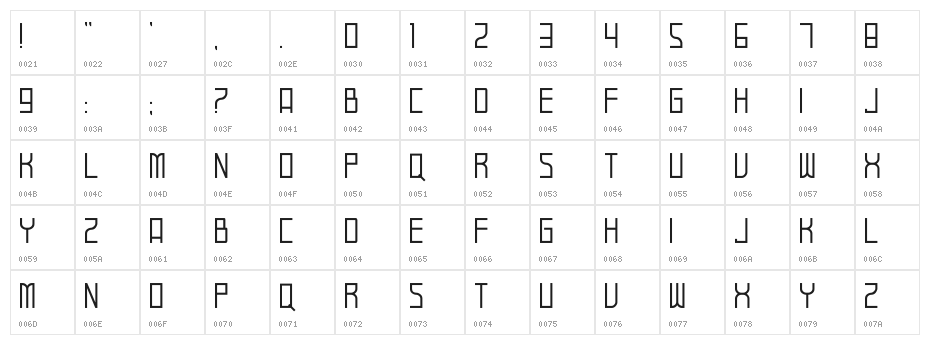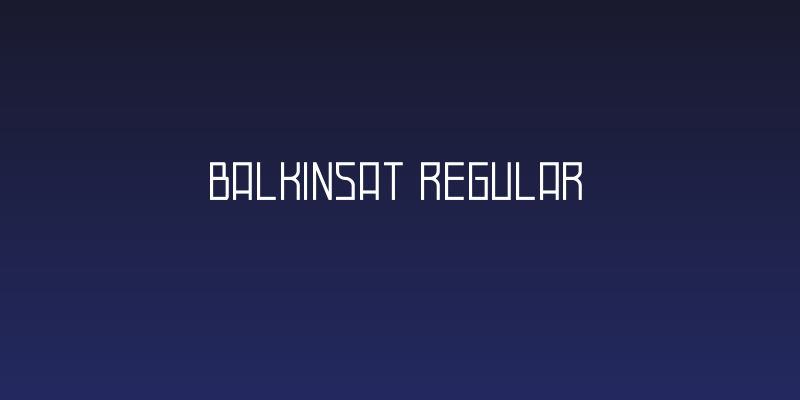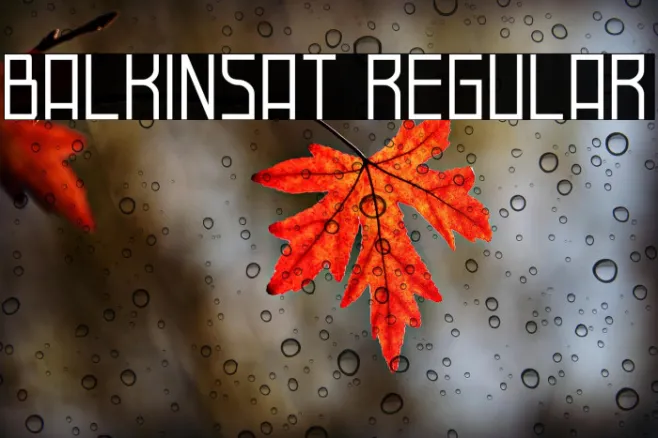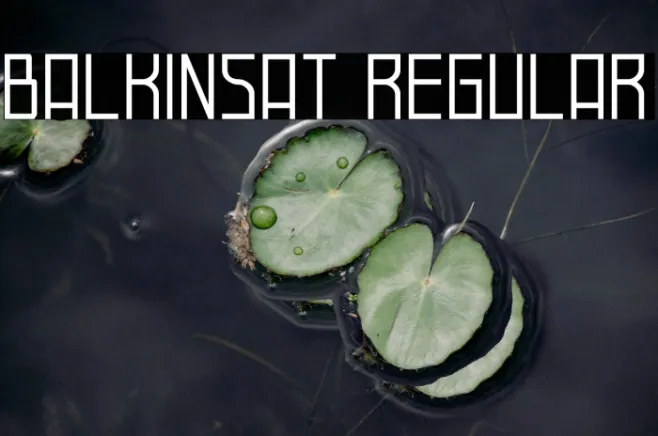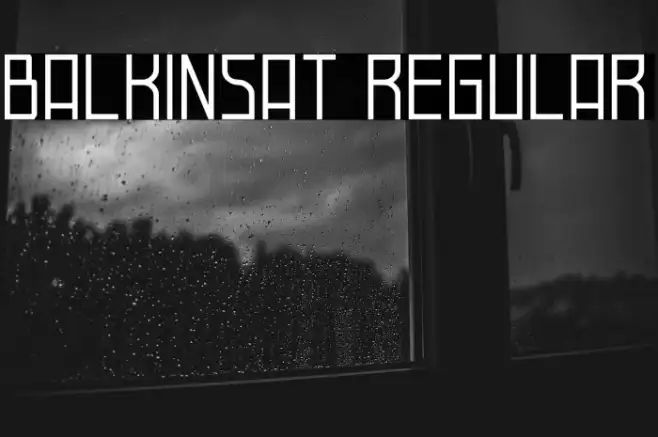
Balkinsat Regular Font
Balkinsat Regular Description
This font features a geometric and modern design with a clean, structured appearance. The characters are composed of straight lines and sharp angles, giving it a futuristic and technical feel. The uppercase letters are uniform in height, while the lowercase letters maintain a consistent style that complements the uppercase. The numbers are distinct and align well with the overall design, ensuring readability. Special characters are minimalistic, maintaining the font's sleek aesthetic. The overall look is both stylish and functional, suitable for a variety of digital and print applications.
| Proposed Projects | Ideal for technology branding, digital interfaces, modern posters, and futuristic designs. |